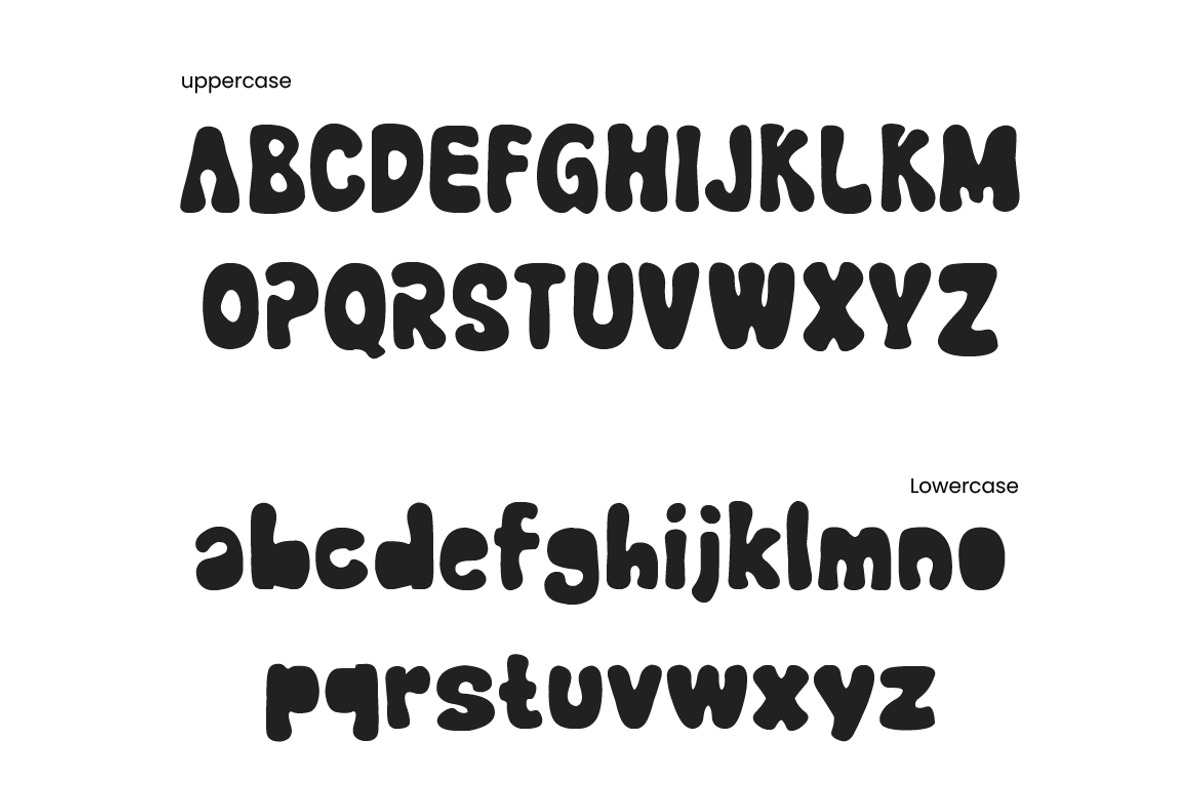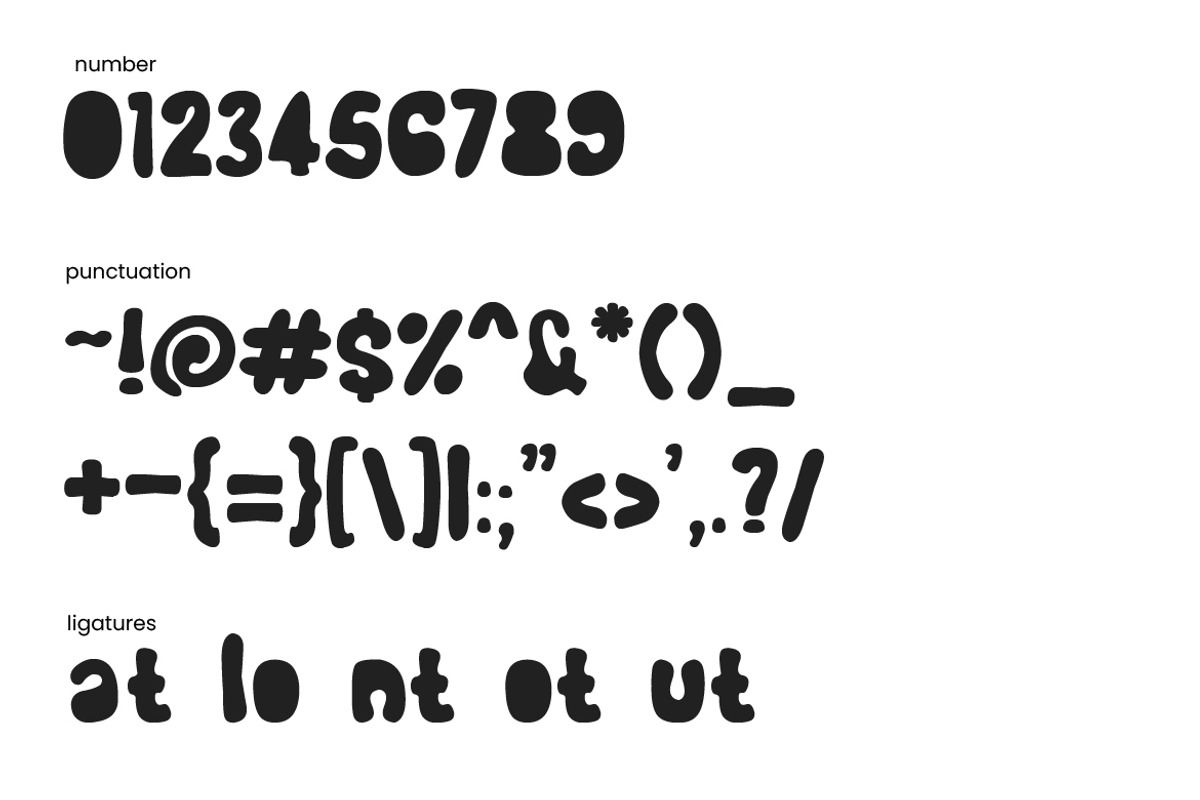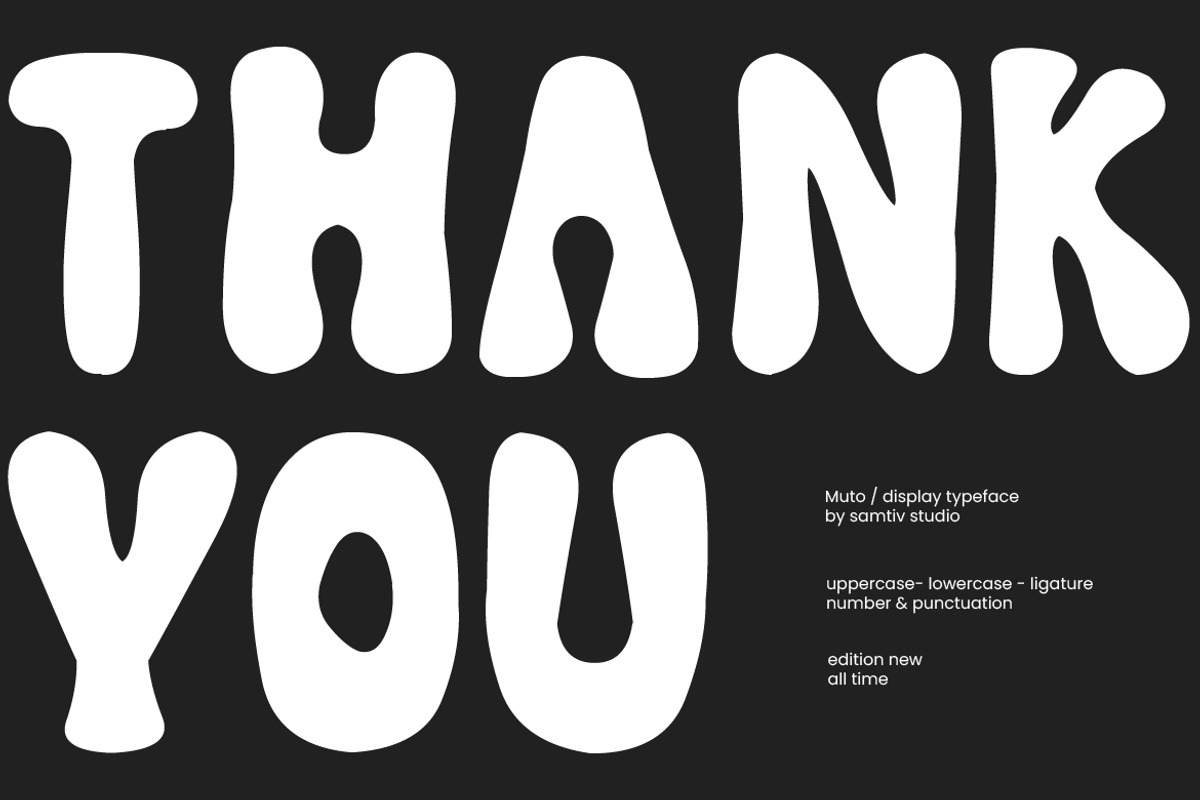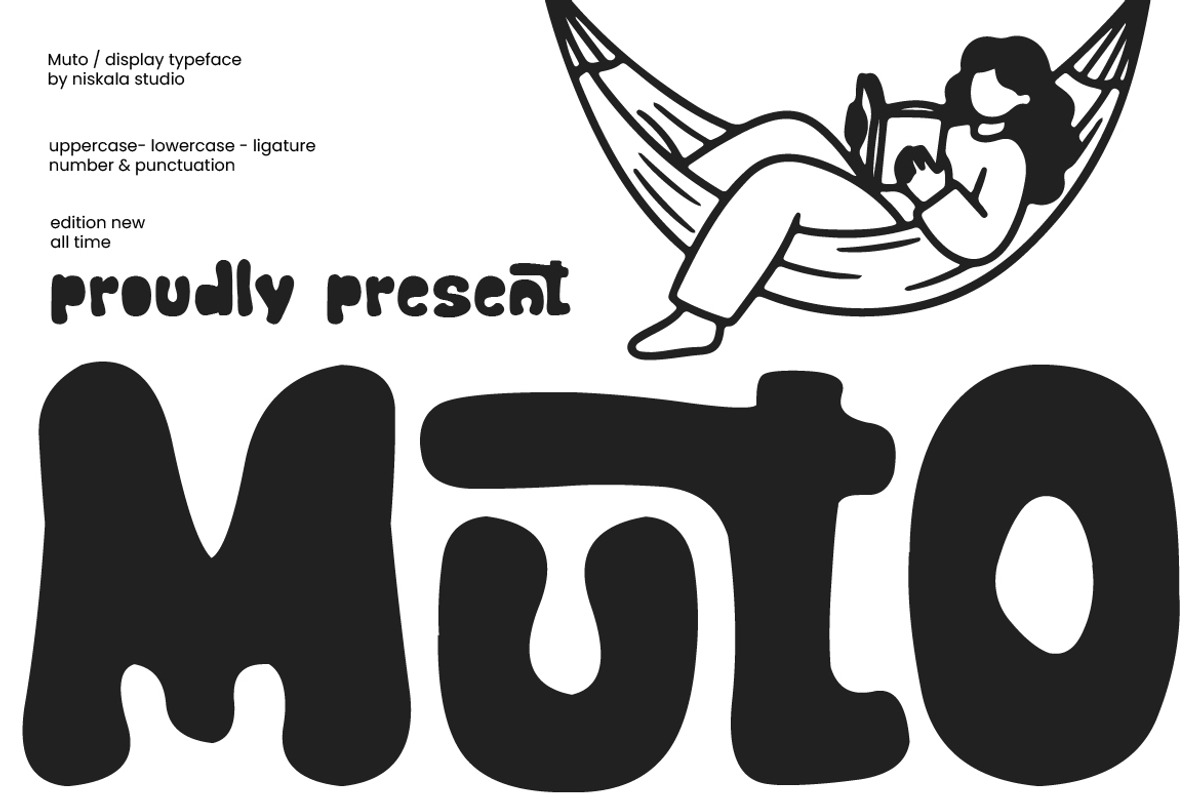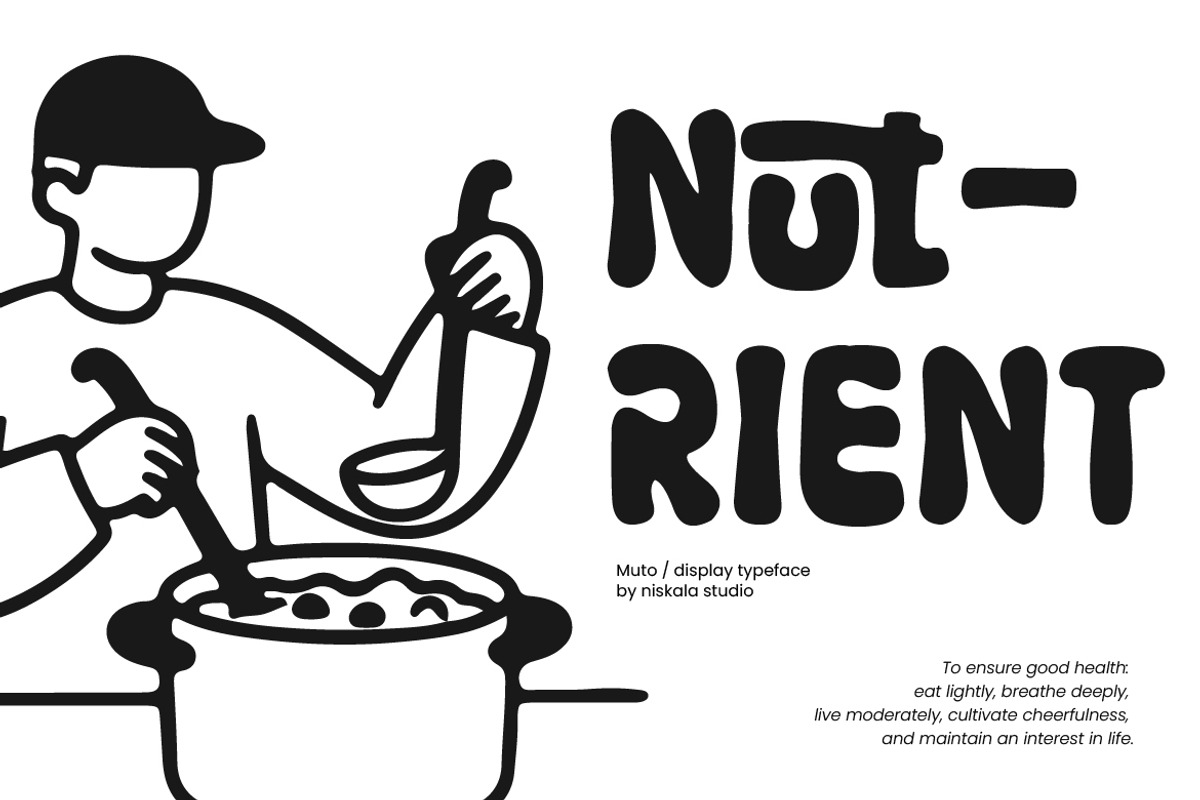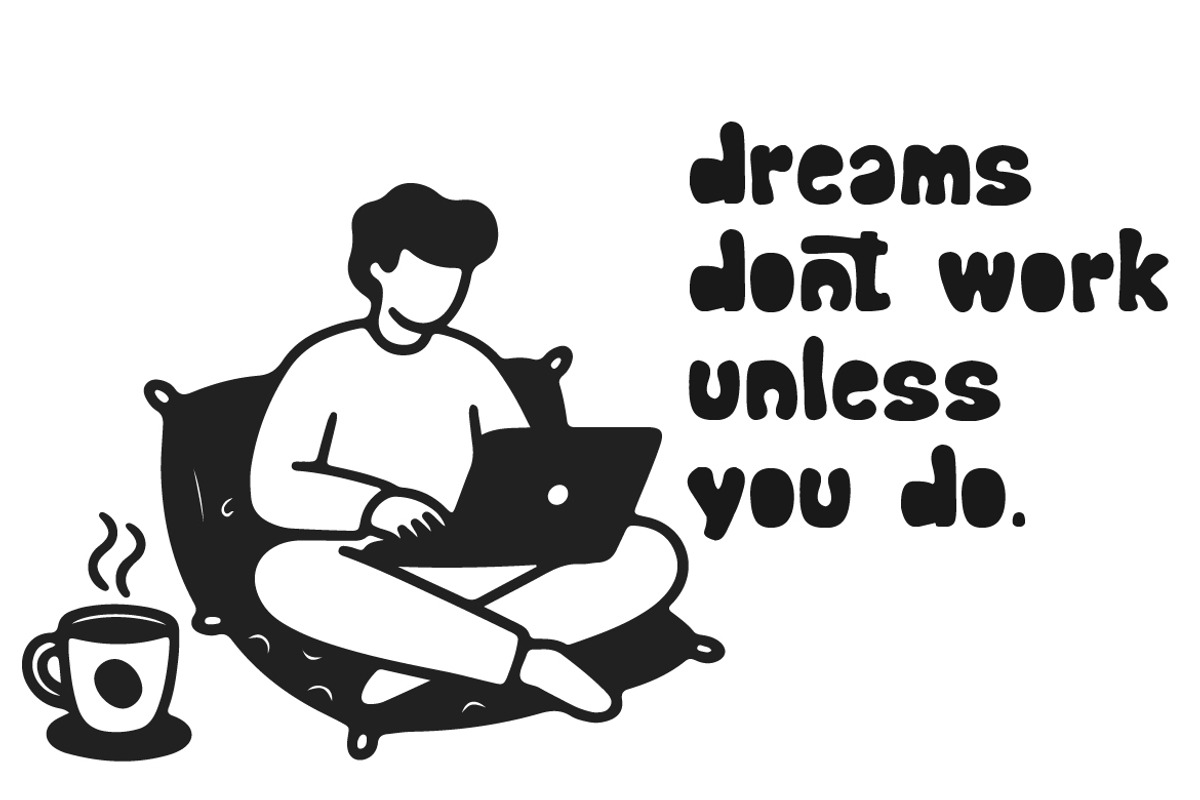
Muto
Bring a playful, groovy vibe to your creative projects with Muto, a fun and bubbly display font designed to instantly catch eyes. Featuring heavy letterforms, organic wavy lines, and unique ligatures, this font perfectly captures the nostalgic spirit of 70s retro aesthetics paired with a modern bold twist.
Whether you are designing colorful posters, trendy apparel, retro branding, stickers, or packaging, Muto brings warmth, energy, and an unmistakable pop art personality to your text.
+ Uppercase & Lowercase letters
+ Numbers & Punctuation
+ Custom Ligatures
+ Multilingual Support (if applicable)
Best Used For:
+ Retro Poster & Cover Designs
+ Streetwear & Apparel Graphics
+ Logo Branding & Packaging
+ Social Media Graphics & Quotes
+ Sticker & Merchandise Design